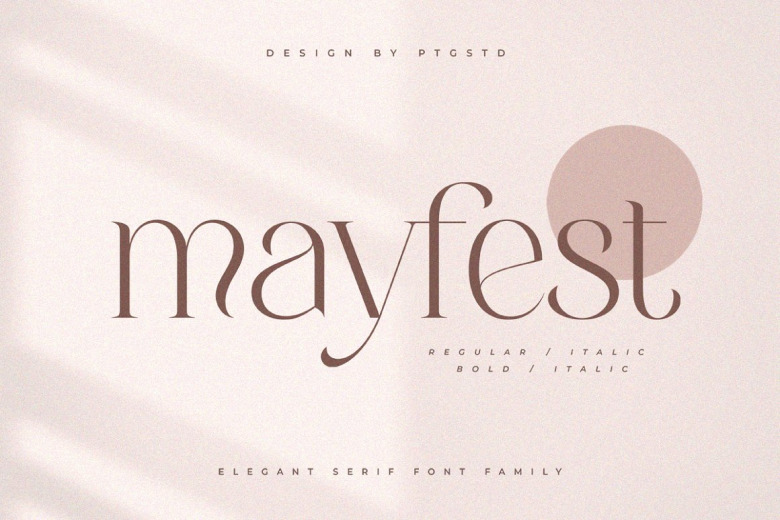
Mayfest Font
Mayfest Serif Font is a clean font designed to suit the need of a designing professional for most of his or her projects which entails elegant character and luxury. It can easily be matched with a whole plethora of top creative ideas, thus, get it in your pool of creativity and see the difference it makes on your ideas instantly!
It will be ideal if used in creating movement posters, cinema posters, logos, t-shirts, and magazine covers, lovely typography, and more.
Mayfest Serif Font